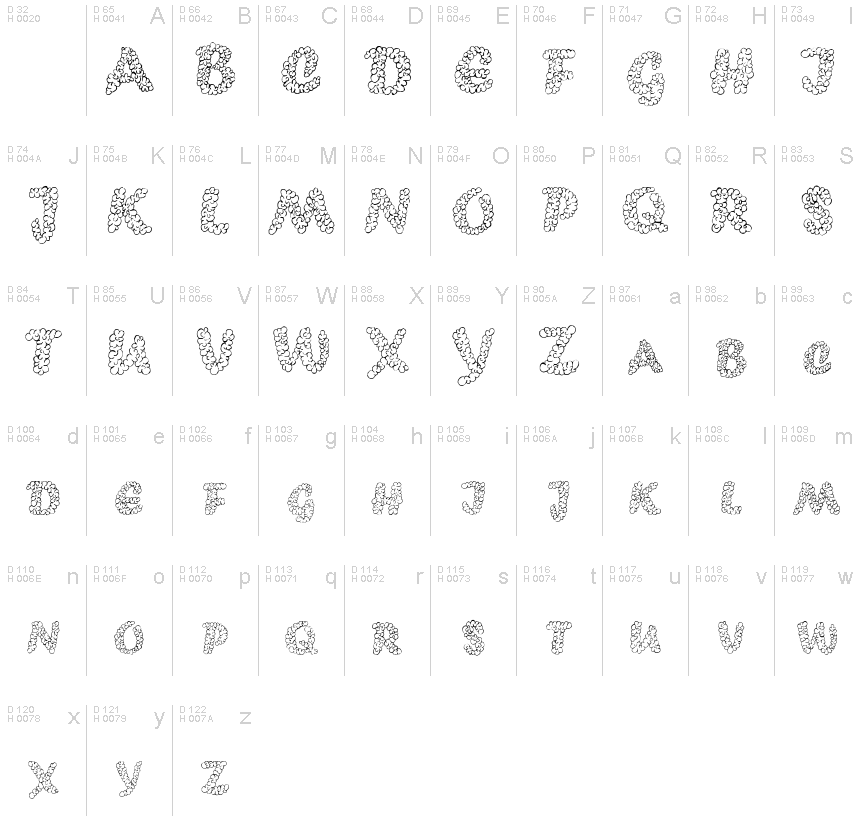
PopcornEBO
Popcorn EBO is a delightfully playful, cartoon-inspired font that exudes a sense of whimsy and fun. Designed by Digital Typeface Studio, this bold and distinctive display typeface boasts a unique, bubbling texture that immediately catches the eye. The irregular, organic shapes and overlapping strokes create a dynamic, almost three-dimensional effect, lending a vibrant and lively quality to any design.
Its bold, cartoon-inspired aesthetic makes Popcorn EBO an ideal choice for a wide range of creative applications, from children's books and party invitations to social media graphics and packaging designs. The font's distinctive character and eye-catching appeal can help bring a touch of playfulness and personality to any project.